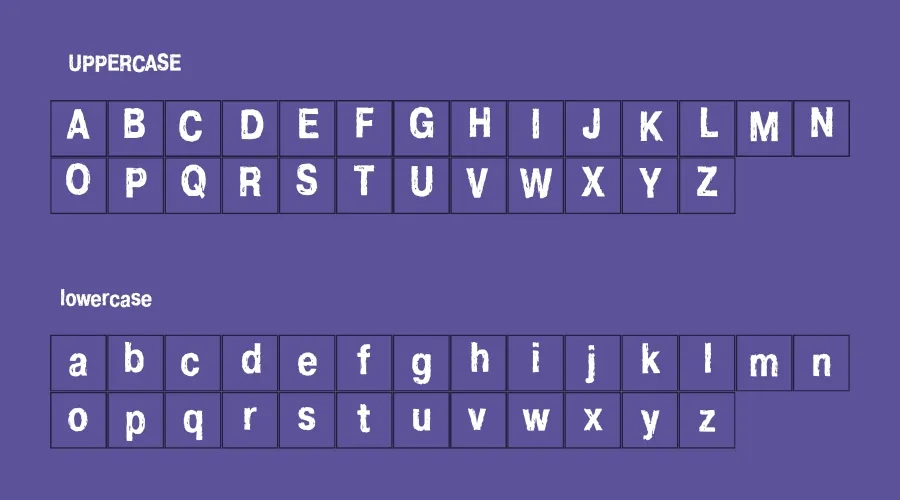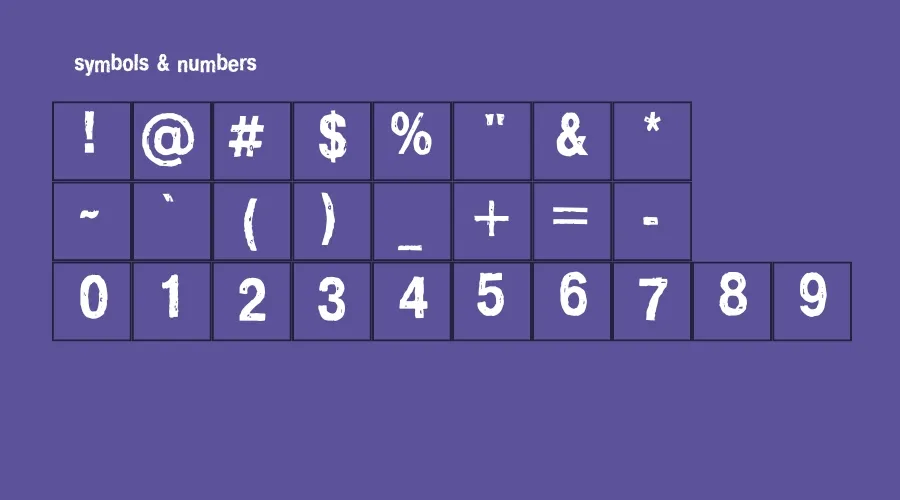
Ft95 Font
About Ft95 Font
In this article, we are going to introduce to you the best display typeface known as the name of FT95 font. It was created by FT Content Provider with unique types of characters. This font is under the category of the decorative typeface family.
It consists of multiple types of characters, such as small letters, capital letters, numerals, punctuations, symbols, and many more.
You can easily utilize this font with a chisel font and make attractive designs. If you’re looking for a modern font with a wide range of elements, this font is a fantastic option.
Name Ft95 Font
Designer FT Content Provider
Style Display
The font family is available in multiple types of weights and styles such as;
• UprightBold
• Upright Brush
• Upright Regular
• Upright grunge
This font has amazing pairing quality, you can pair it with different other fonts such as;
Pairing it with Quicklamb Font: This attractive style is suitable for making an excellent and stylish shape. You can combine these two fonts for multiple purposes.
Pairing it with Ocean Rotation Font: It is suitable for web page projects and has an excellent texture look impression for the viewers. You can easily use it with multiple decorative styles.
With Midtown Font: This modern and stylish style is similar to this typeface. It has amazing pairing quality and can be paired with different other decorative fonts.
With GrandAventure Font: This attractive style is suitable for making an eye-catching and attractive style. You can utilize these two textures with other projects.
What is a similar font to Ft95 Font?
A similar font to this typeface is the disclaimer font. It has an amazingly modern and trendy typeface style.
You need a decorative typeface that can be utilized for a variety of projects. You want a typeface that is positively readable and has a neat, easy design. This typeface supports some international languages such as English, Greek, Latin, etc.
What kind of font is Ft95 Font?
It is a decorative style and belongs to the category of the display typeface family. You can utilize it for multiple designs and purposes.